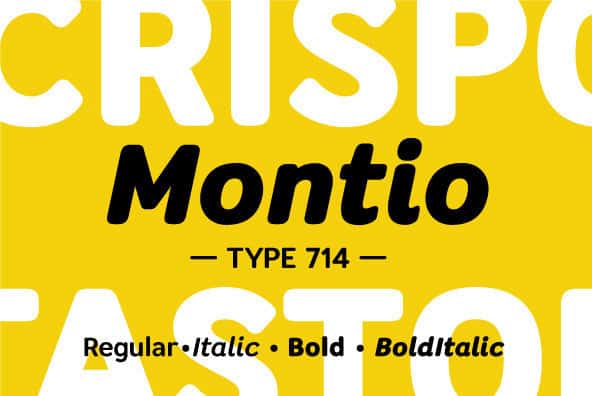
Montio Font
Montio Font is perfect for luxury branding, fashion magazines, high-end product packaging, boutique hotels, jewelry catalogs, premium cosmetics, wine labels, architectural firms, art galleries, upscale restaurants, wedding invitations, and sophisticated corporate identities.
What makes Montio Font exciting is its refined elegance that seamlessly blends contemporary minimalism with classic sophistication, creating an irresistible allure for premium brands. This exquisite typeface features carefully balanced proportions and subtle design details that convey exclusivity and high-quality craftsmanship. The font's understated luxury and graceful letterforms make it perfect for brands that want to communicate prestige without appearing ostentatious. Its versatile character allows it to work beautifully in both large display applications and refined body text, maintaining its sophisticated appeal across all contexts.
The Montio Font family includes light, regular, medium, and bold weights, each available with corresponding italic styles. The comprehensive family also features stylistic alternates, elegant ligatures, and refined numerals that enhance the font's premium character and provide designers with sophisticated typographic options.
Whether you're creating luxury brand experiences, designing editorial publications, or developing premium product communications, Montio Font Free Download provides the sophisticated elegance your high-end projects require. This premium typeface excels in applications where refinement and quality perception are essential for brand positioning. The font's meticulous craftsmanship includes advanced OpenType features, extensive language support, and careful attention to spacing and kerning details. Luxury brands and design agencies choose this font for its ability to communicate exclusivity and sophistication simultaneously. The comprehensive character set supports multiple languages, making it ideal for international luxury market applications. Professional designers appreciate its versatility in creating cohesive brand systems that maintain elegance across all touchpoints. When you implement this exceptional typeface in your work, you're investing in a typography solution that elevates brand perception and communicates premium quality, ensuring your luxury communications resonate with discerning audiences while maintaining the sophisticated aesthetic standards expected in today's competitive premium marketplace.